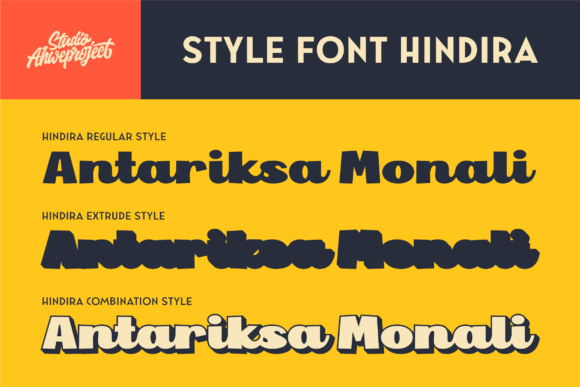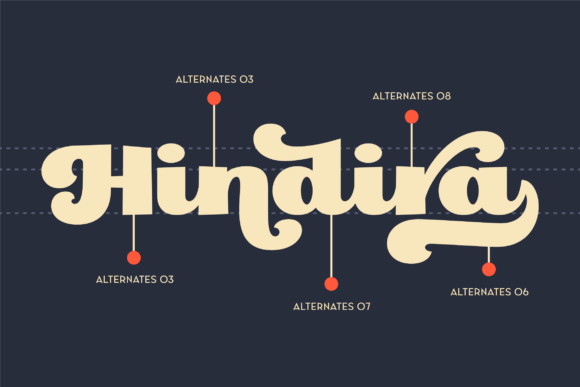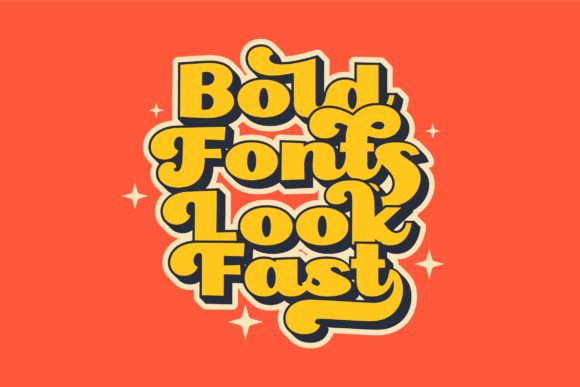
Introduction to Hindira Font
Remember the thrill of browsing through old movie posters or music album covers from the 90s? The way the fonts seemed to leap off the page, full of character and charm? That’s the magic of the Hindira Font – a retro script font that captures the essence of 90s design vibes. With its chunky, playful letterforms, Hindira is the perfect addition to any designer’s toolkit.
As a designer, you know how hard it can be to find the perfect font to elevate your project. That’s why the Hindira Font is such a valuable resource – offering two bold styles and a transparent background, making it easy to integrate into any design. Whether you’re working on a high-quality print project or a creative digital design, Hindira is here to bring a touch of nostalgic flair to your work.
Key Features of Hindira Font
- Features a transparent background, making it ideal for use on images, graphics, and other visual elements.
- Includes a wide range of characters, including uppercase and lowercase letters, numbers, and special symbols.
- Designed with a unique aesthetic, Hindira Font is perfect for adding a touch of elegance to any creative project.
Honest Review: Hindira Font
As a designer, I’m always on the lookout for high-quality design resources to enhance my creative projects. Recently, I stumbled upon the Hindira Font, and I must say it’s a great addition to my design library. ✨
The Hindira Font is a free download, making it a fantastic resource for designers on a budget. Its elegant script design is perfect for creating beautiful, sophisticated typography that’s sure to elevate any project.
Here are some of the features that I love about the Hindira Font:
- Transparent background, allowing for seamless integration with any design element
- High-quality design, with intricate details and subtle flair
- Perfect for creative projects that require a touch of elegance and sophistication
- Limited character set, which may not be suitable for projects requiring extensive text content
- May not be suitable for digital displays, due to its high-resolution design
Overall, the Hindira Font is a great addition to any designer’s toolkit. While it has its limitations, its high-quality design and elegant script style make it a valuable resource for creative projects. ⚠️
The Hindira Font is perfect for:
1. Creating eye-catching logos and branding materials.
2. Adding a unique touch to social media graphics and advertisements.
3. Designing invitations and event materials.